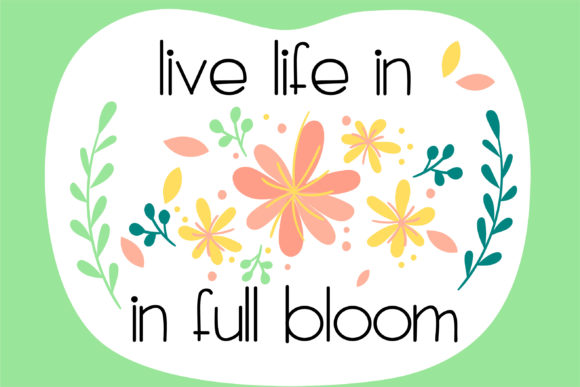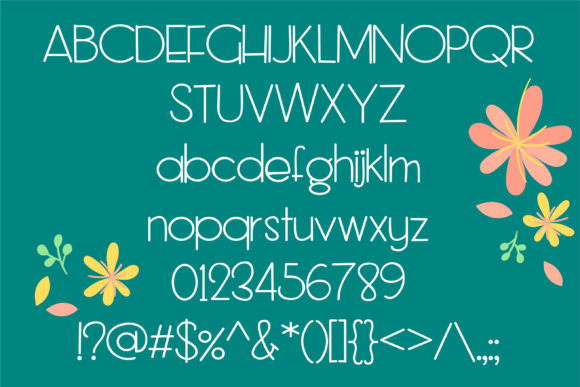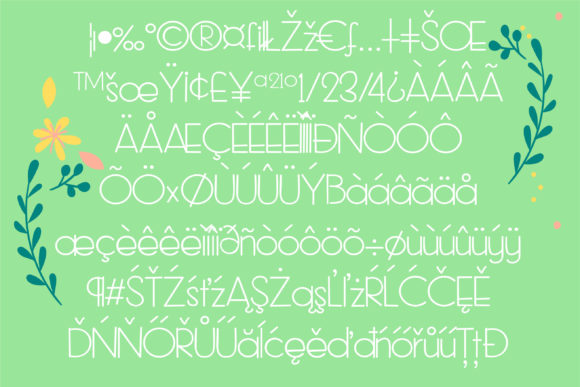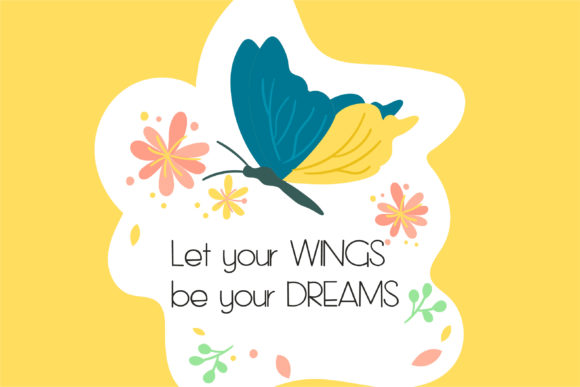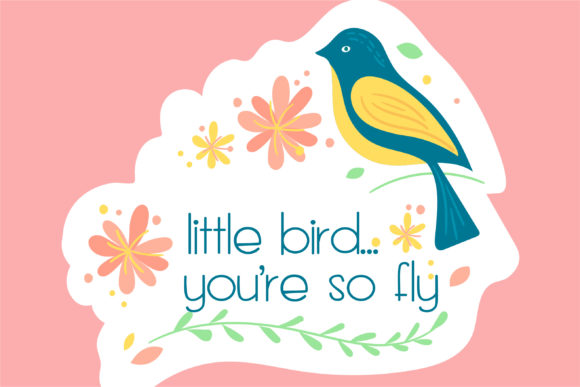
ZP Zerapeutic Font
About ZP Zerapeutic Font
Zerapeutic is a beautiful hand-crafted font. Use this gorgeous and unique font to bring any DIY project to life!